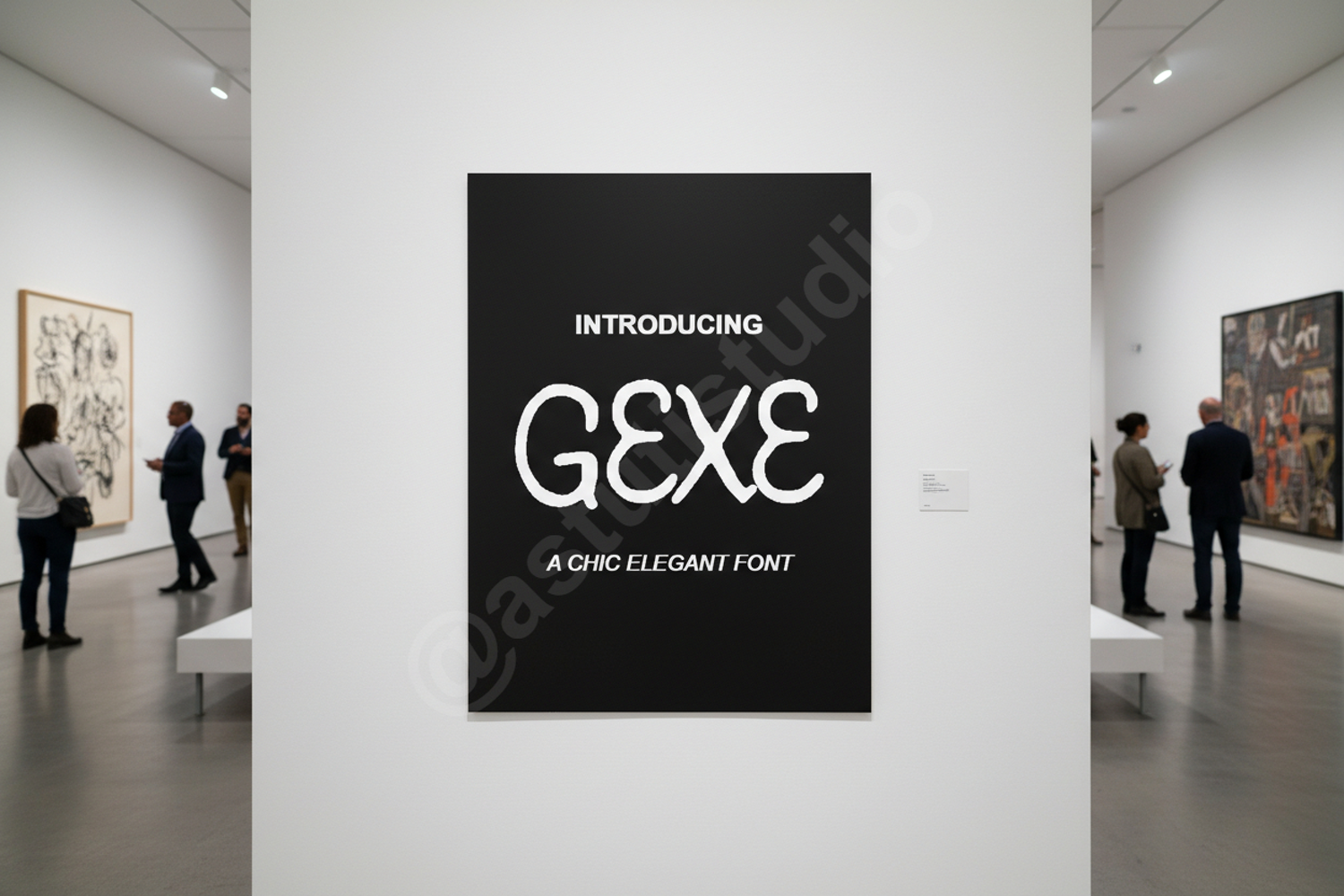
Gexe - Modern Geometric Display Sans
Gexe
Gexe is a premium display typeface designed to bring a sophisticated and contemporary edge to your creative projects. With its roots in geometric precision, Gexe offers a clean, minimalist aesthetic that ensures your designs stand out with professional clarity and modern flair. Whether you are working on a high-end brand identity or a sleek digital interface, Gexe provides the versatility and impact required for top-tier design work.
Gexe is engineered for maximum visual impact across both print and digital mediums. It is an ideal choice for:
- Branding and Corporate Identity: Create memorable logos and brand guidelines.
- Editorial Design: Perfect for bold headlines and striking magazine layouts.
- Web and App Design: Enhance user interfaces with clean, legible typography.
- Advertising and Posters: Capture attention with modern, geometric letterforms.
- Product Packaging: Elevate tech-focused or luxury product presentations.
- Social Media Graphics: Craft high-engagement visuals for Instagram, LinkedIn, and beyond.